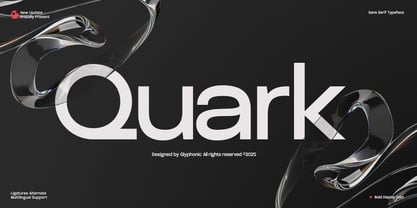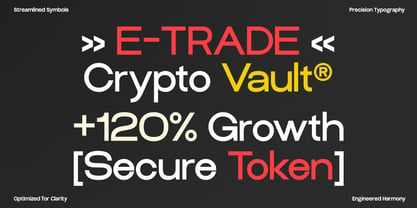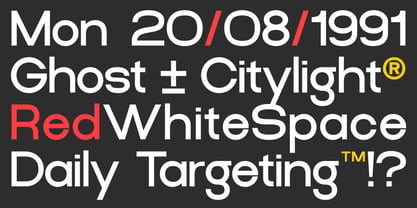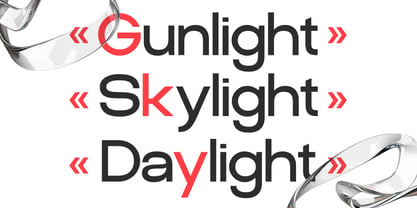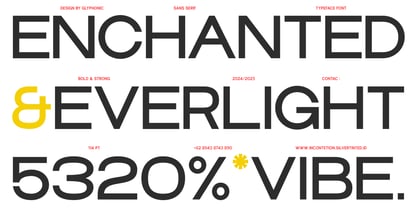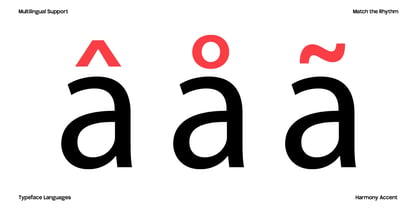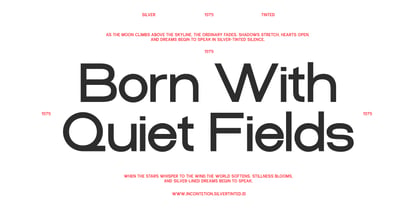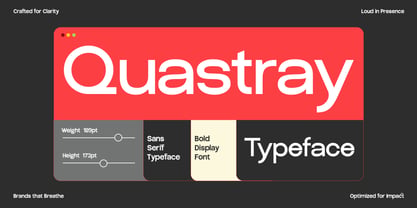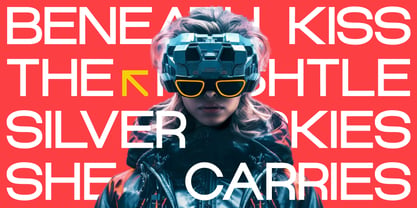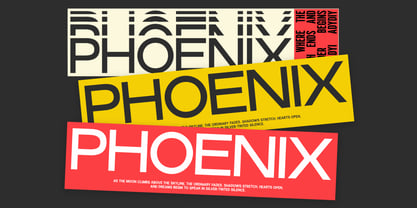
GC Quark
The GC Quark Font Family was designed by Muhammad Hafiizh Solana and published by Onyx Studio. GC Quark contains 1 styles. More about this family
Quark is a sleek modern sans-serif typeface that blends minimalist structure with refined clarity. It embodies a contemporary spirit while maintaining high readability, making it perfect for branding, editorial layouts, logos, user interfaces, and product packaging.
With its clean lines, uniform stroke widths, and geometric balance, Quark delivers a crisp and professional feel. The letterforms are constructed to appear both technical and elegant, making it a versatile choice for designers working in tech, fashion, architecture, and lifestyle branding.
Features:
+ Uppercase & Lowercase
+ Ligatures & Stylistic Alternates
+ Numbers & Punctuation
+ Multilingual Support
Make your design bold, refined, and timeless with Quark.